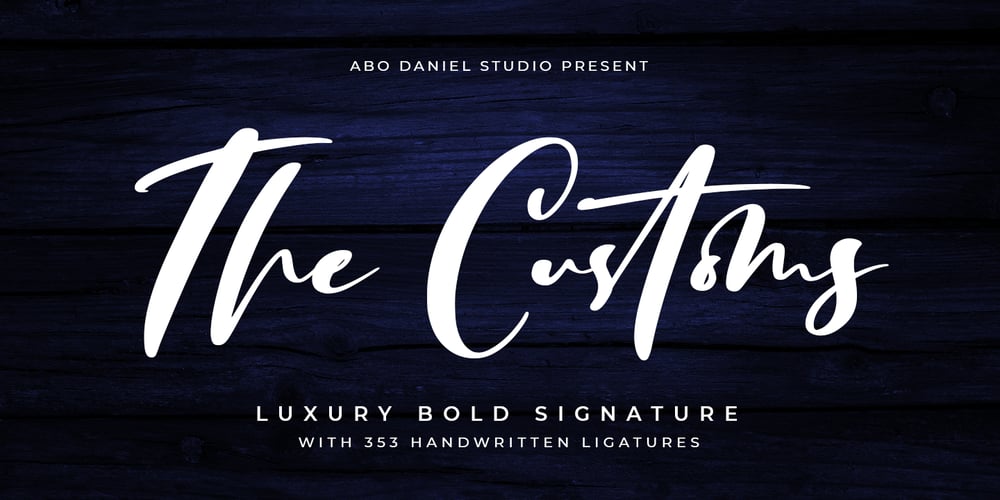
The Customs
The Customs font
The Customs Font Family was designed by Abo Daniel and published by Abo Daniel. The Customs contains 1 styles and family package options. Proudly PresentTHE CUSTOMS-Luxury Bold Signature Font-After going through a long process, finally, this stunning signature font is finished and released.This font is made with an extra careful process.THE CUSTOMS is designed for professional projects.It’s great for logos, branding, business cards, flyers, posters, photography, t-shirts, watermark, and anything your projects that need elegant touch.353 HANDWRITTEN LIGATURESI made 353 ligatures to keep this font look more natural and very user-friendly.you can see them in display pictures.FEATURES Uppercase Lowercase Number & Punctuations 353 Ligatures PUA Encoded Please enjoy this stunning signature font.I hope you love itregards,Abo Daniel Studio